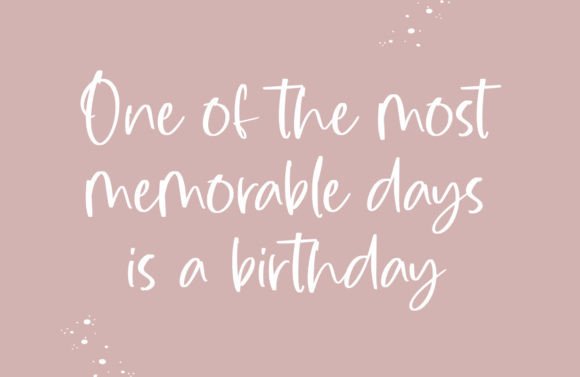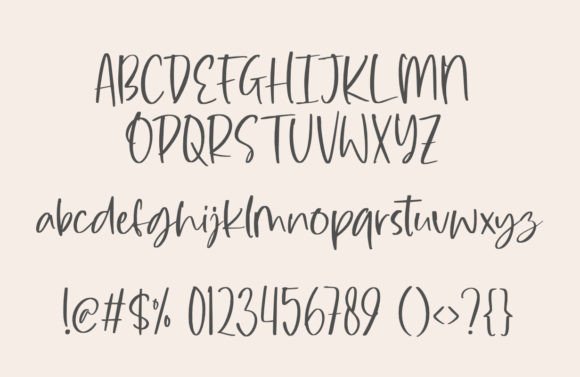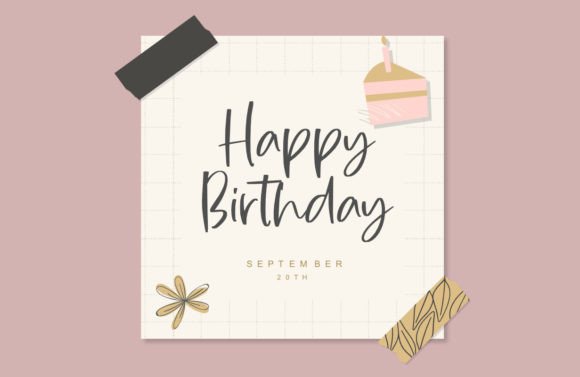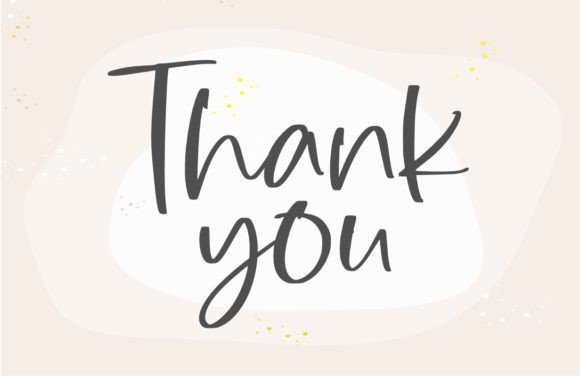
The Quest for the Perfect Font: Discovering Catlind
I’ll never forget the frustration of working on a design project, hours spent perfecting every detail, only to be held back by one thing: the font. It was as if my design was crying out for that one special something to elevate it from good to great. My client was specific – they wanted elegant, they wanted sophisticated, and they wanted it to feel personal. I scoured font libraries, tried out countless combinations, and still, nothing seemed quite right. That was until I stumbled upon Catlind, a beautiful handwritten font that would change the game.
A First Impression: What Makes Catlind Special
Catlind is more than just a font – it’s a statement piece. Crafted with an elegant touch, it brings a level of sophistication and personality to any design. Whether you’re working on a branding project, a wedding invitation, or a personal craft, Catlind has the potential to make your designs spectacular. Here’s what I love about it:
• ✨ Elegant and refined, perfect for projects that demand a high level of sophistication
• ✅ Highly legible, making it suitable for both headings and body text
• 💫 Versatile, suitable for a wide range of design themes and projects
While Catlind has won my heart, it’s not without its quirks. Here are a few things to consider:
• ⚠️ Limited availability of stylistic alternates, which might limit its use in super creative projects
• 🤔 Can be a bit overused in certain design circles, so use it wisely to stand out
The Story Behind Catlind: Designer Inspiration
Catlind was crafted with the goal of creating a font that feels both personal and sophisticated. Inspired by classic calligraphy and modern handwriting, its designer aimed to create a versatile font that could be used in a variety of contexts. While the designer’s story might be shrouded in mystery, the impact of Catlind on the design community is clear.
Is Catlind suitable for body text? Yes, Catlind is highly legible and can be used for both headings and body text, though it’s particularly striking as a headline font.
Does Catlind support OpenType features? Yes, Catlind comes with a range of OpenType features, including stylistic alternates and glyphs, which can enhance your designs.
Catlind is more than just a font – it’s a tool that can transform your designs from ordinary to extraordinary. With its elegant touch and versatile nature, it’s sure to become a favorite in your design arsenal. So why wait? Give Catlind a try and see the difference it can make in your next project.